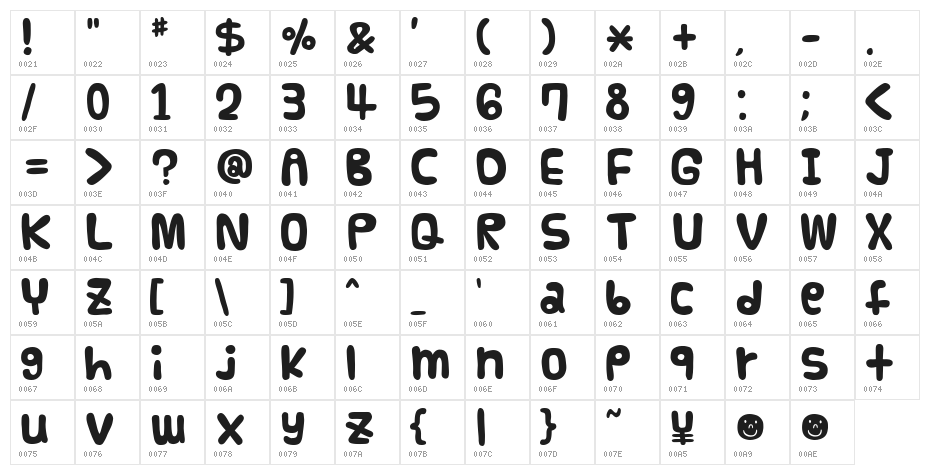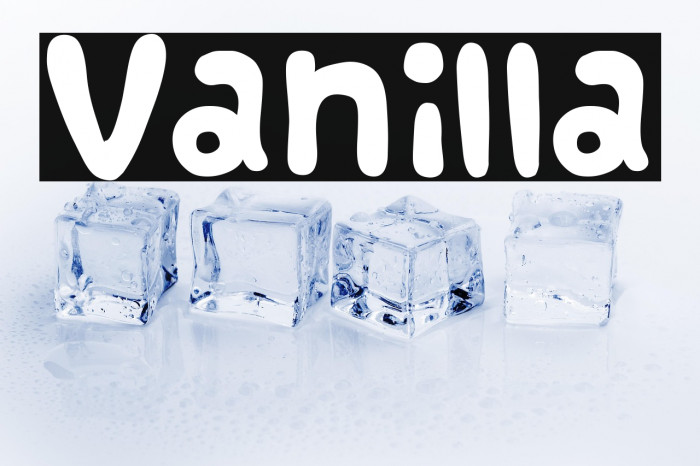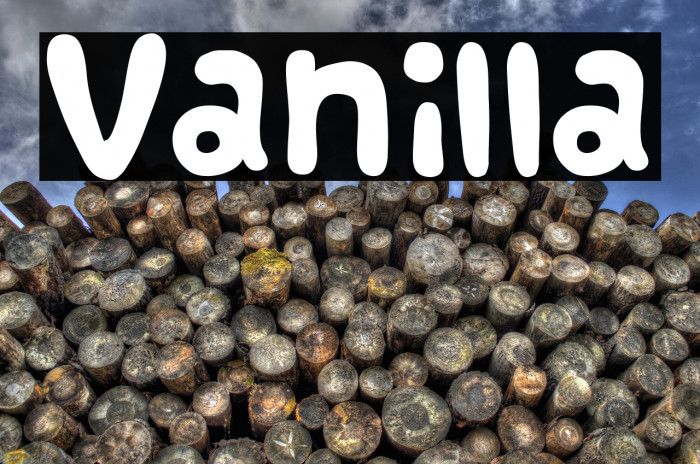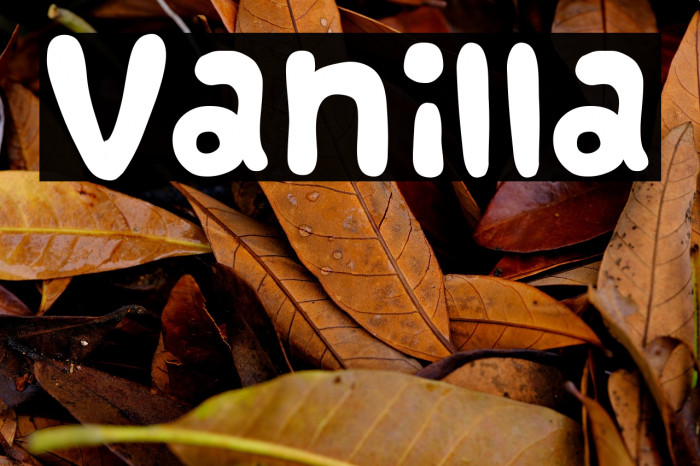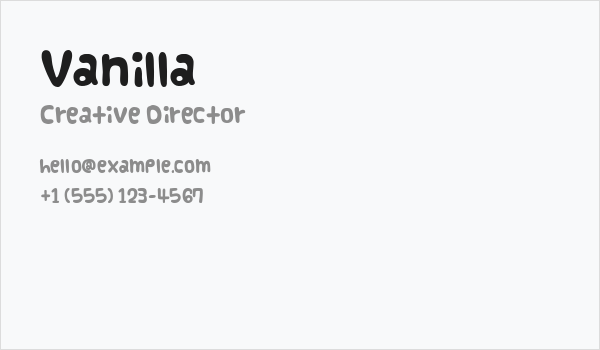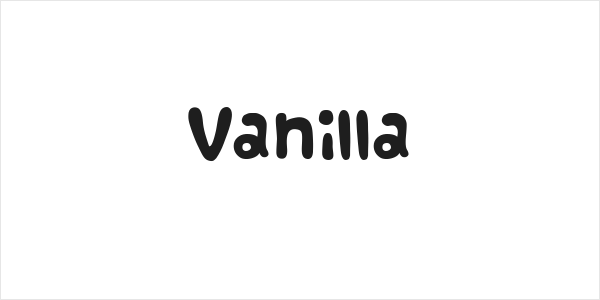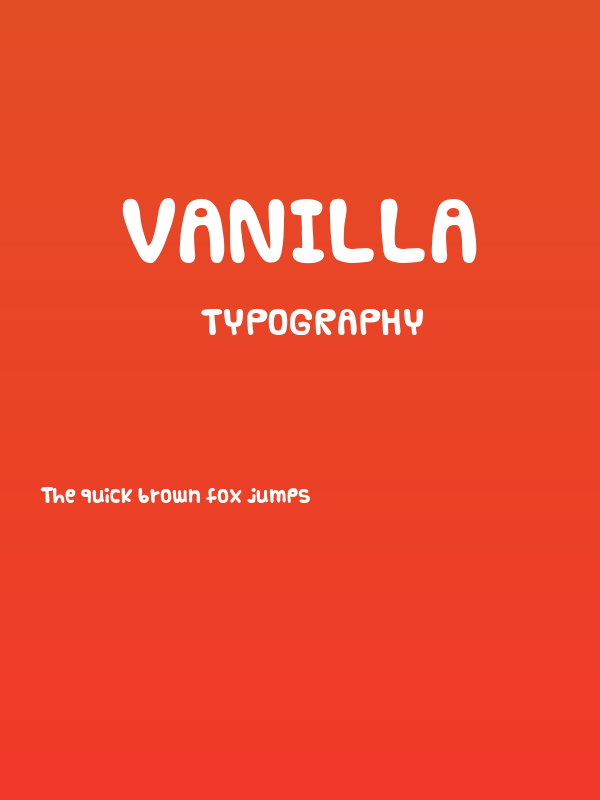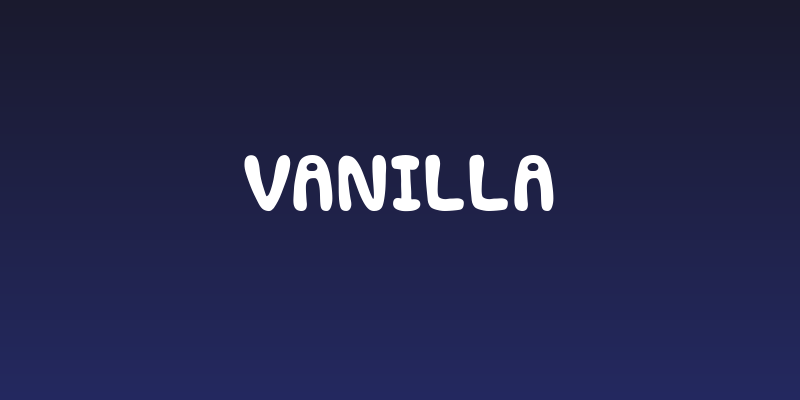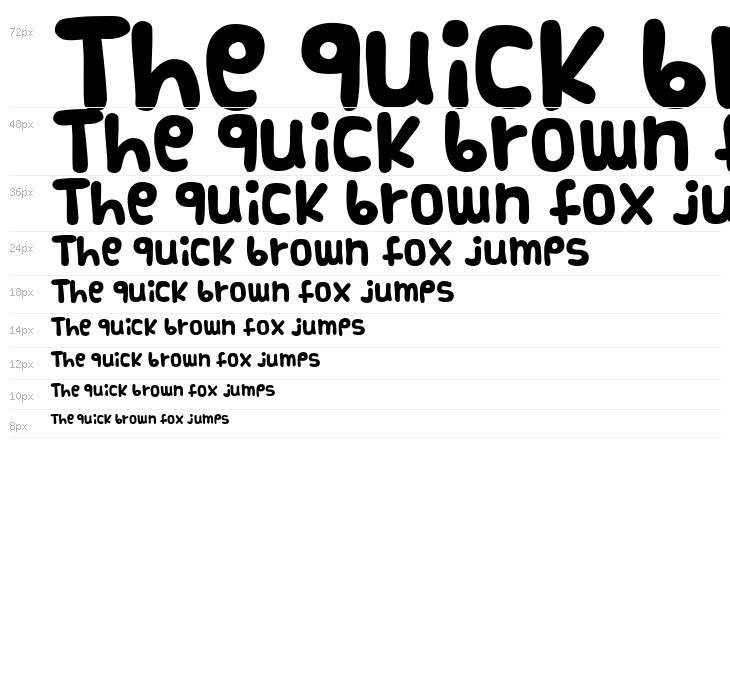
Vanilla Font
Vanilla Description
This playful and rounded font features a bold and friendly appearance, characterized by its thick, uniform strokes and smooth curves. The letters are slightly condensed, giving it a compact look while maintaining readability. Its whimsical style is reminiscent of hand-drawn lettering, making it ideal for projects that require a fun and approachable aesthetic. The consistent stroke weight across all characters ensures a cohesive look, while the rounded edges add a touch of softness. This font is versatile enough to be used in various creative applications, from children's books to playful branding.
| Proposed Projects | Ideal for children's books, playful branding, posters, and casual invitations. |